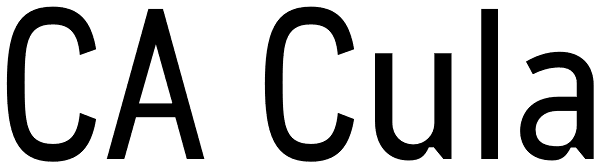
CA Cula
CA Cula is standing in the tradition of cool tempered sans serif typefaces like DIN. But at a closer look it reveals a tendency towards rounder reading-friendly forms. The denaturalized ink traps give CA Cula a very special and individual look in...